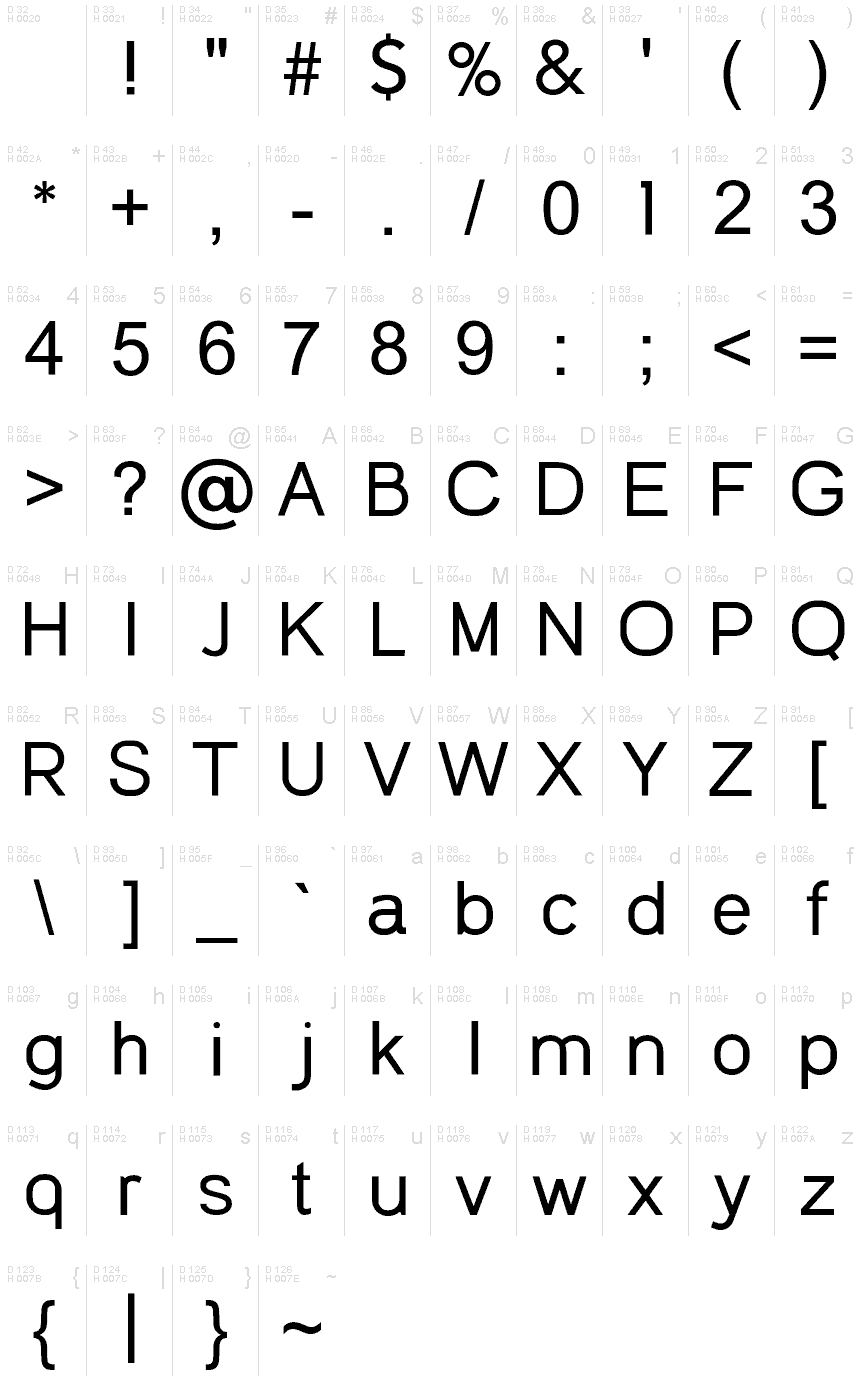
Galvanizer Regular
Galvanizer font by UI Creative is a modern display free font with neat, clean, and professional looking characters. Galvanizer combines a simple geometric look and minimalistic style. Thanks to its impressive appearance, this font can fit in any digital or print design project.
Have fun using Galvanizer in creating your business cards, packaging designs, branding visuals, mobile applications or websites. The versatile sans serif can also go into movie titles, posters, flyers or social media posts.